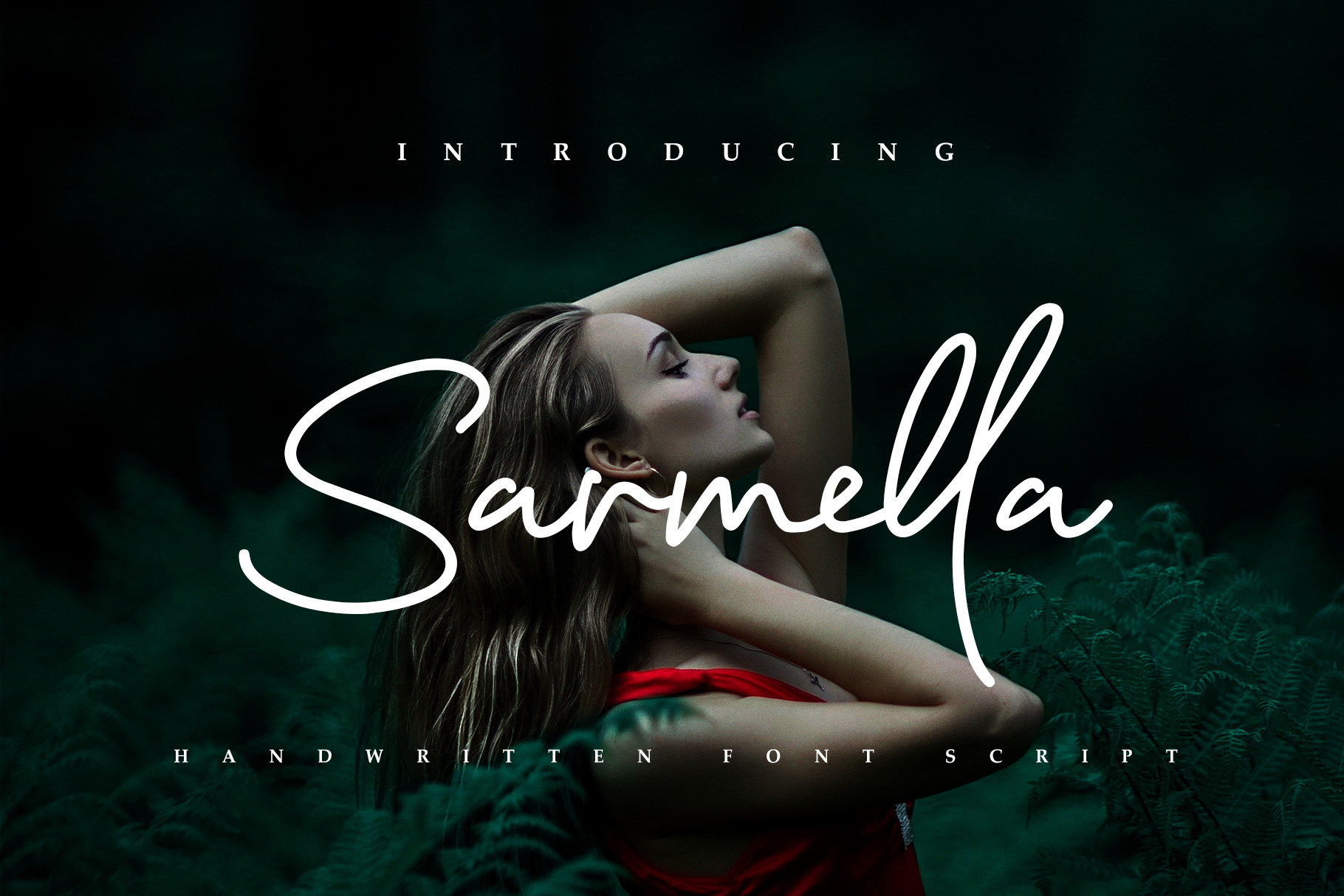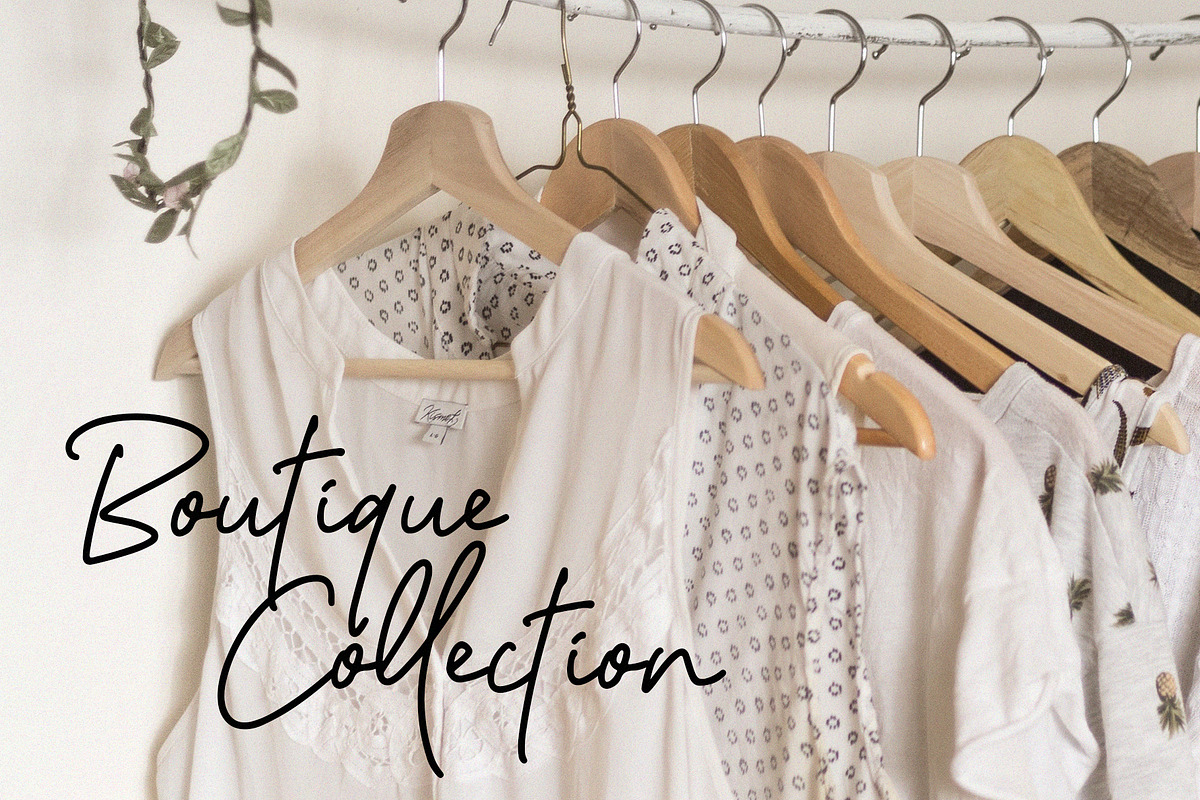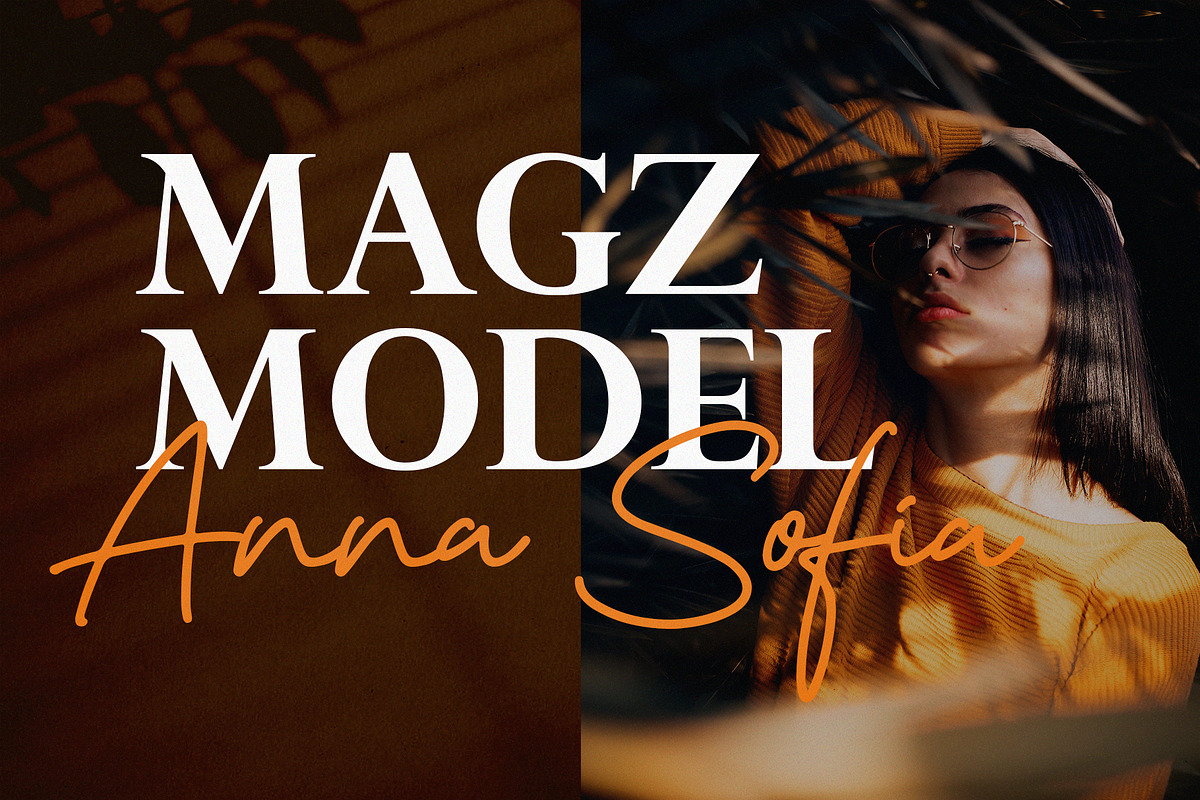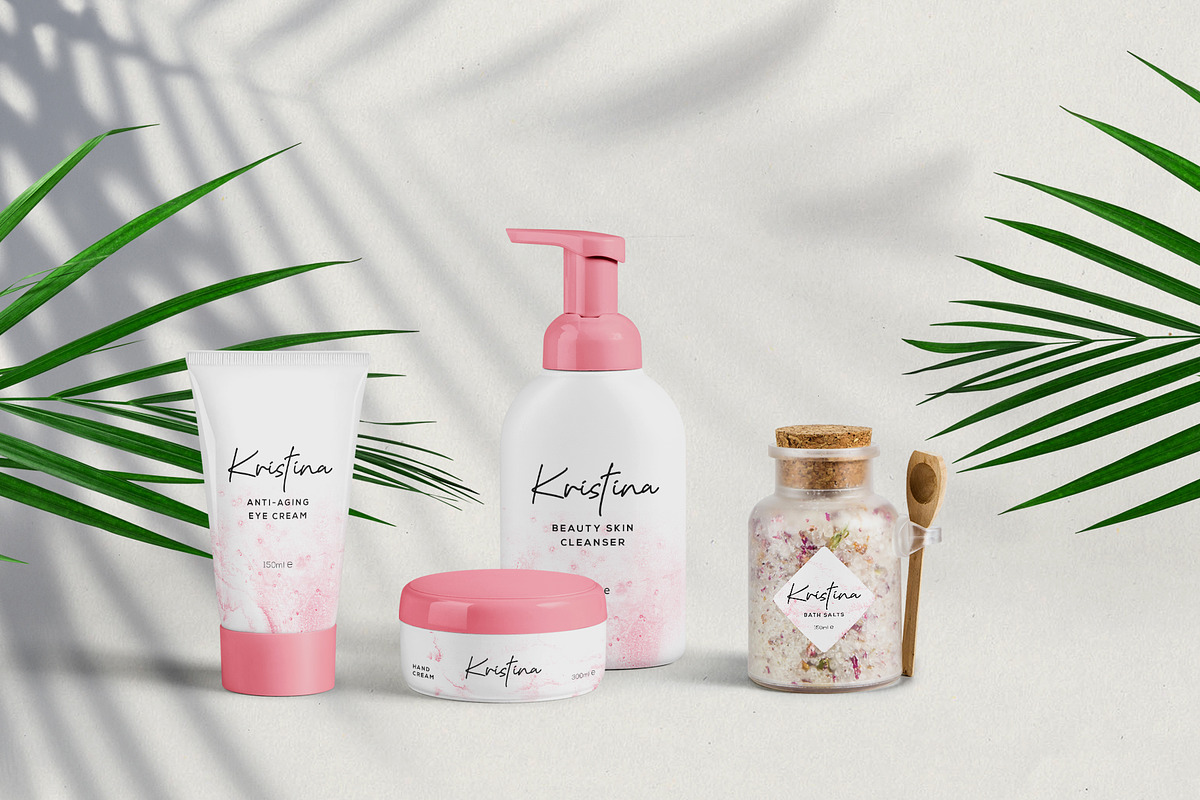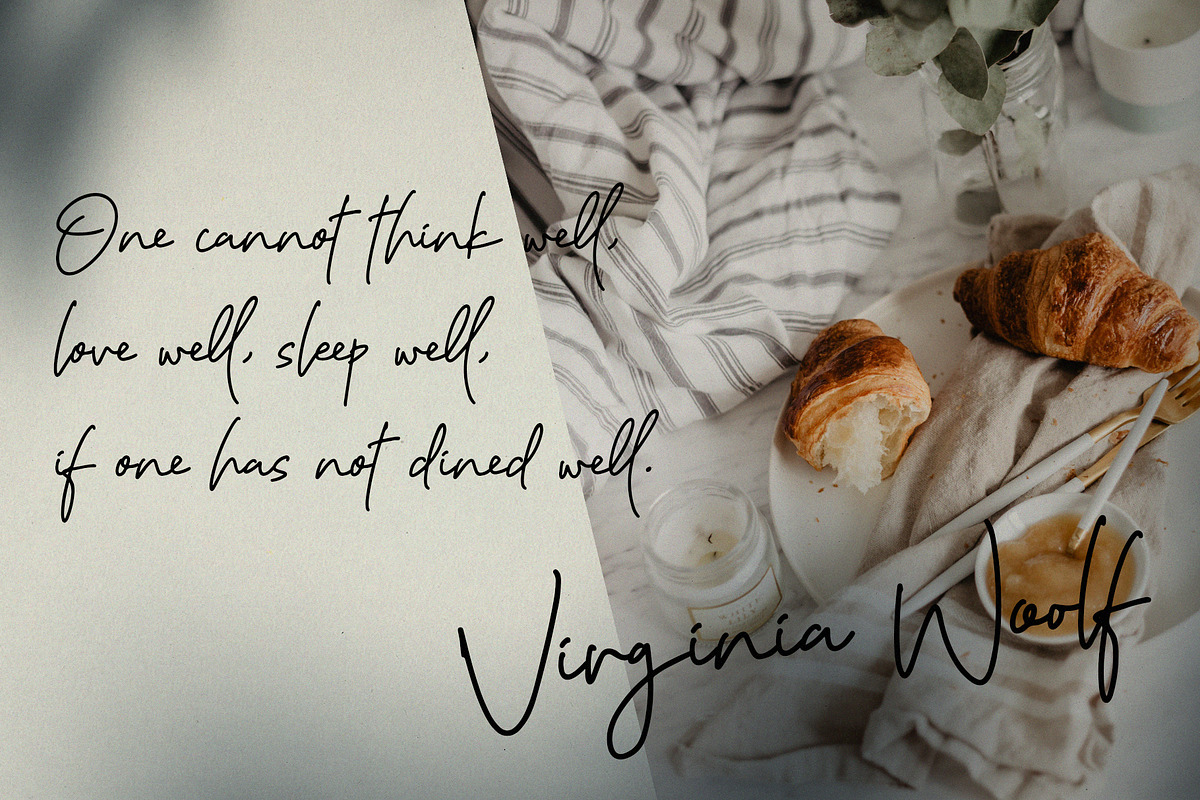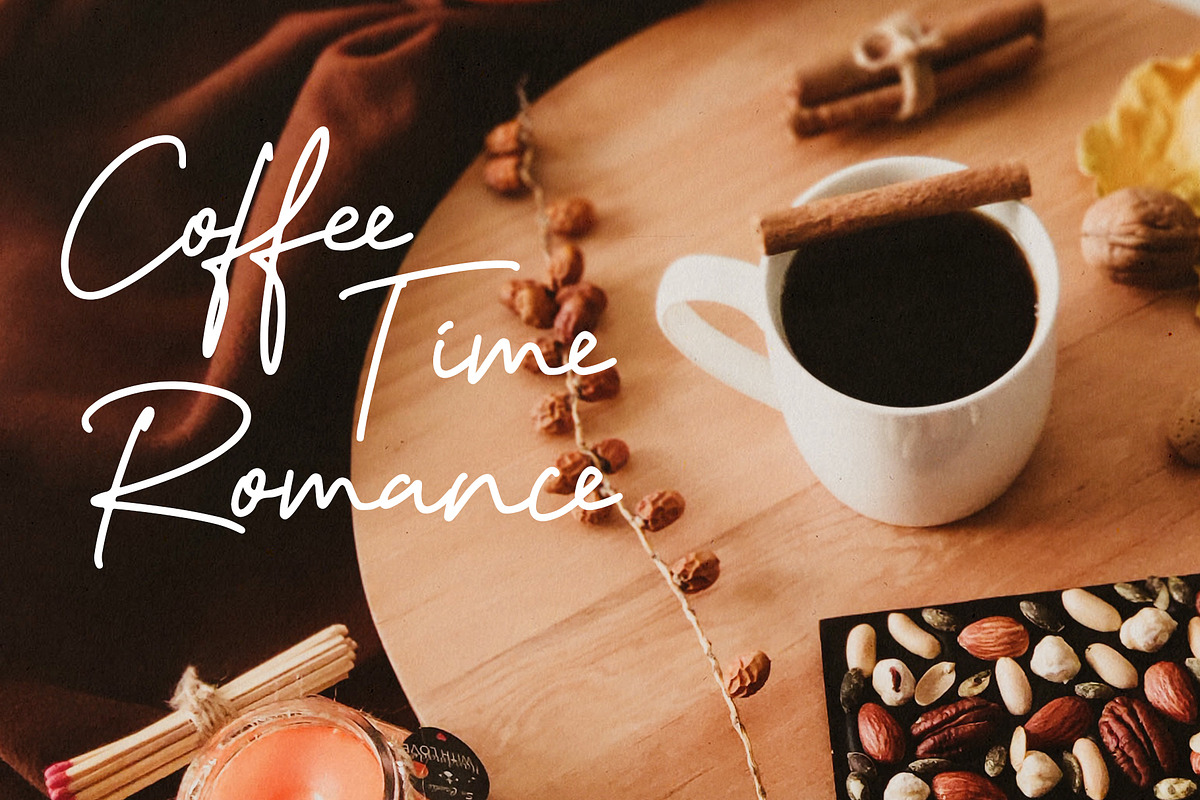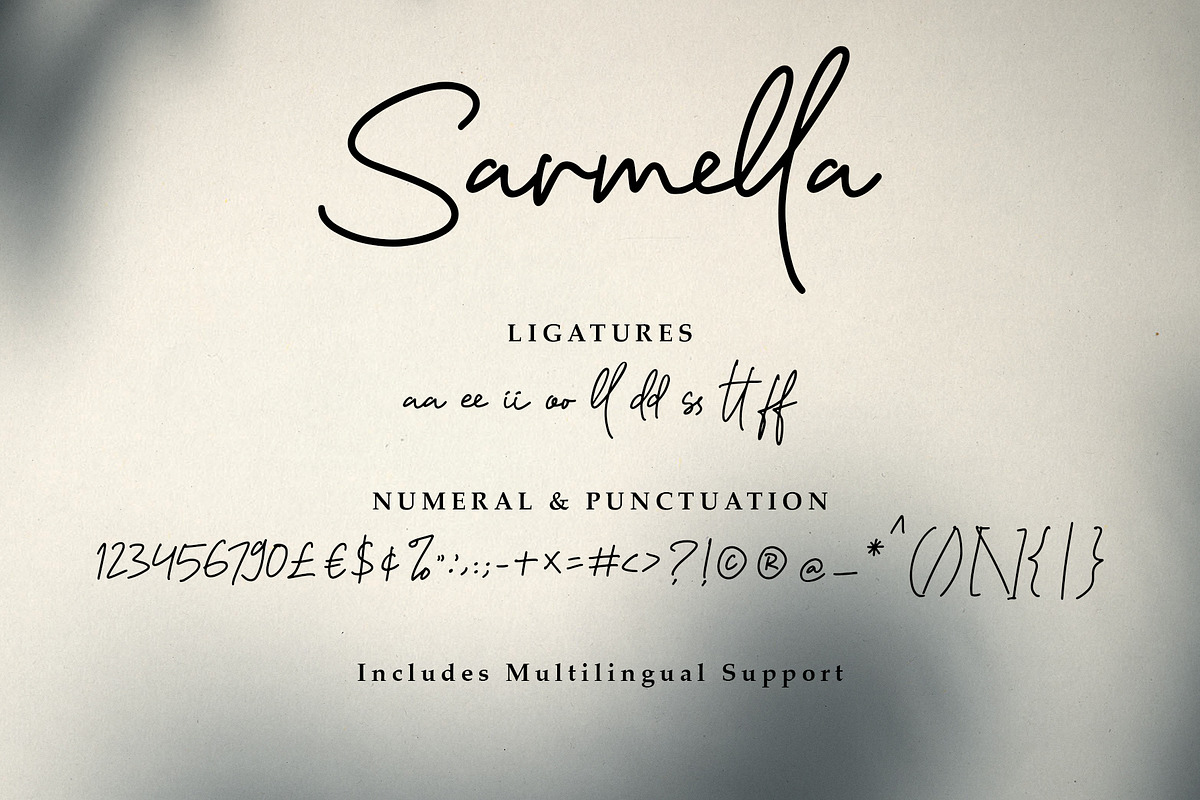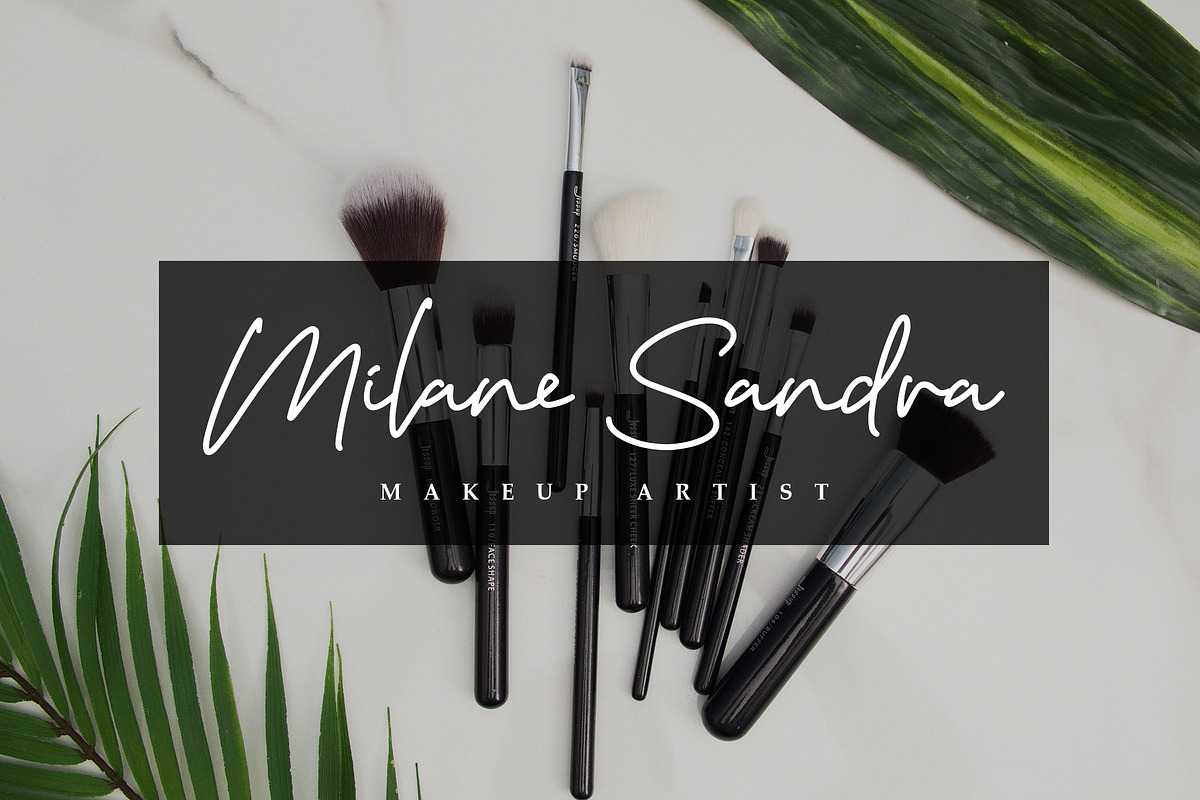
Sarmella Script Font
Introducing Sarmella, A fashionable and super-chilled new handwriting font script
Sarmella is the right choice of fonts for your projects in the form of logos & branding, print media, social media posts, watermarks or works that require hand styles with a distinctive style.